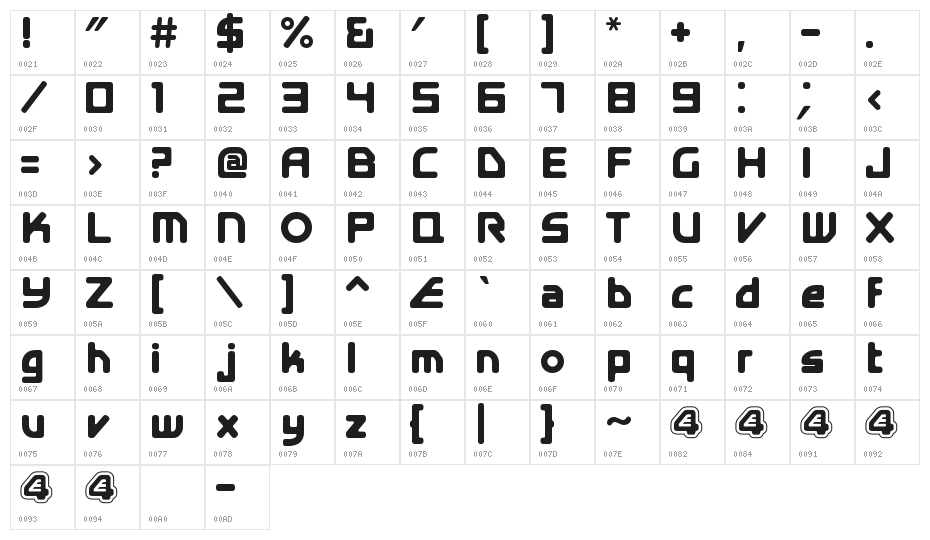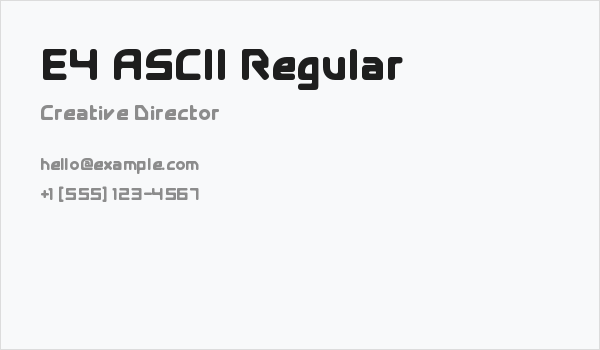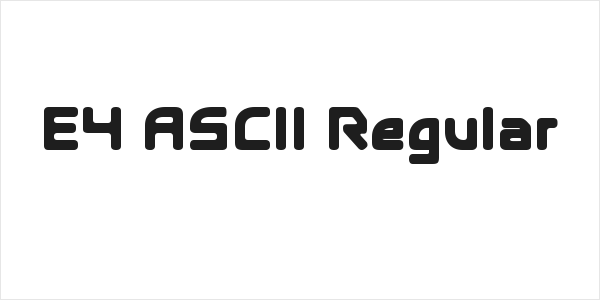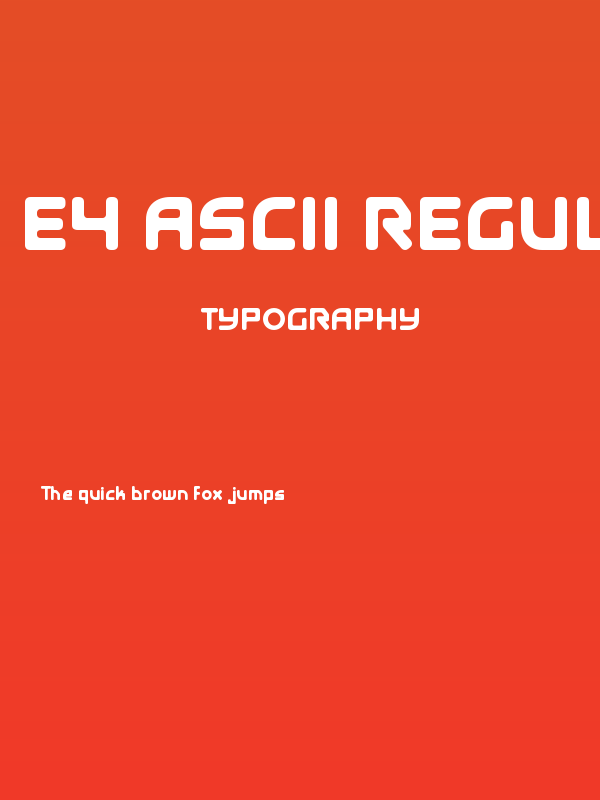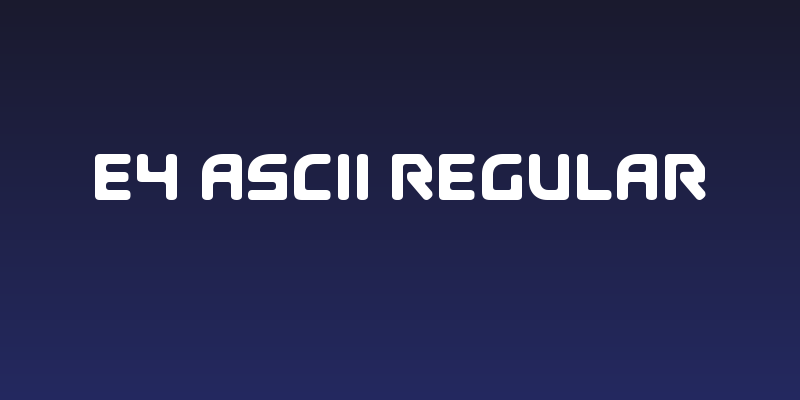
E4 ASCII Regular Font
E4 ASCII Regular Description
This font features a bold and rounded style with a modern and futuristic aesthetic. The characters are uniformly thick, giving it a strong presence. The rounded edges soften the overall look, making it approachable and friendly. The uppercase and lowercase letters maintain a consistent height, which contributes to a cohesive appearance. The numerals and special characters follow the same design principles, ensuring uniformity across all glyphs. This font's design is both functional and visually appealing, making it suitable for a variety of applications.
| Proposed Projects | Ideal for technology branding, video game titles, futuristic posters, and digital interfaces. |